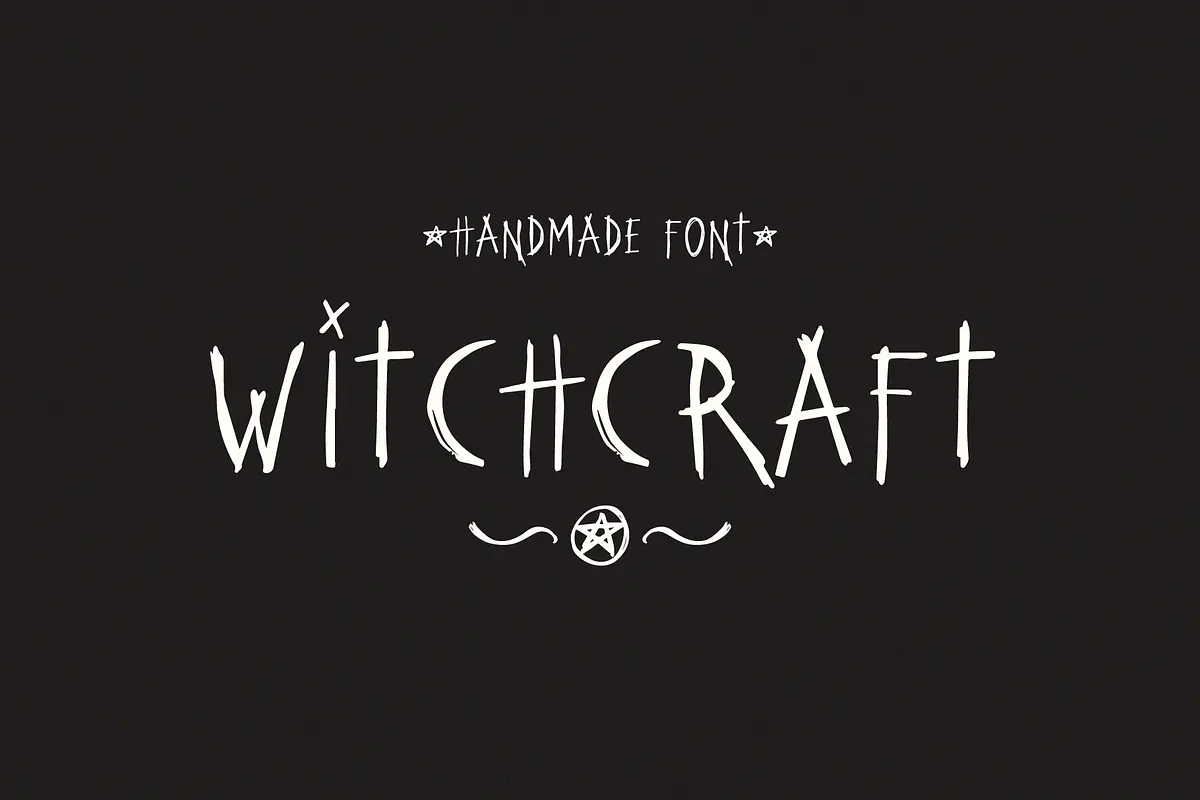
WITCHCRAFT Font Free Download is a bold and spooky typeface inspired by mystical and gothic themes. With its sharp angles and dark, edgy design, this font is perfect for Halloween designs, horror-themed projects, movie posters, book covers, logos, and anything that needs a touch of the supernatural or eerie atmosphere.
Its dramatic letterforms bring a mysterious and magical quality to your typography, making it an ideal choice for projects that evoke witchcraft, dark fantasy, and occult themes.